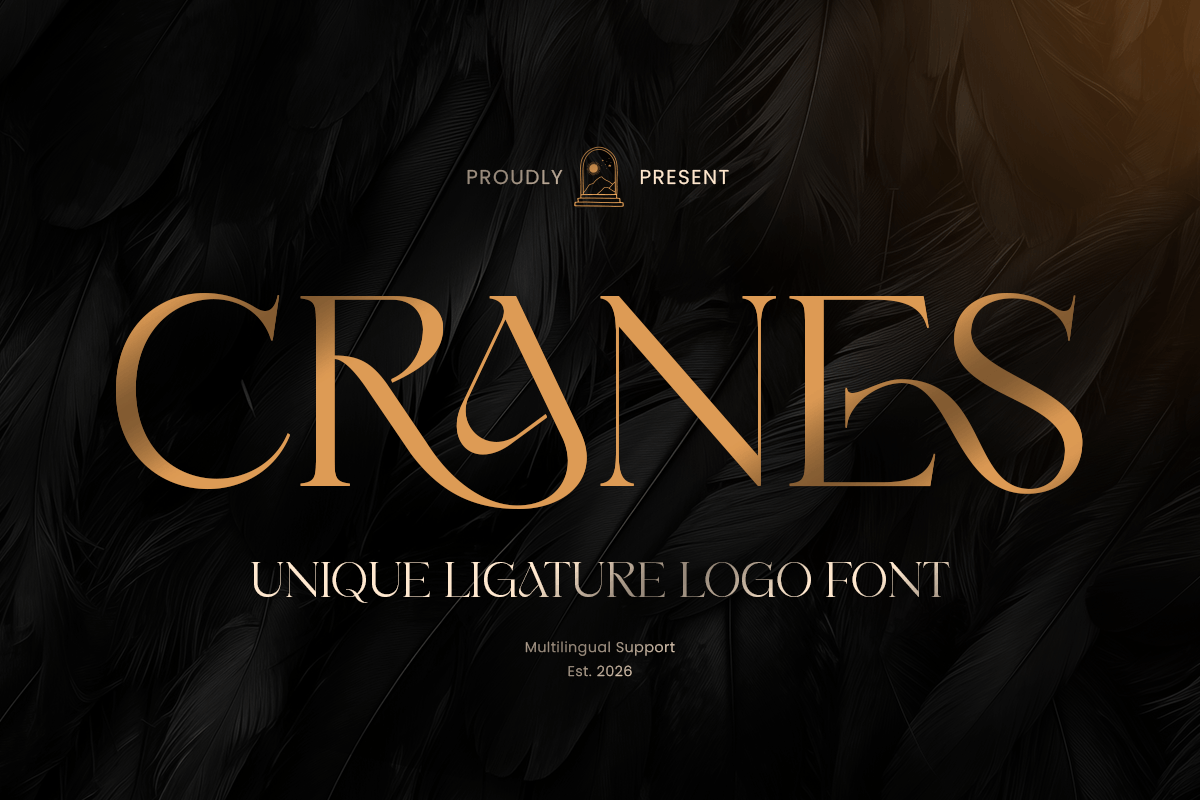
Cranes
-Modern Ligature Logo Serif FontCranes - Modern Ligature Logo Serif Font
CRANES is a modern ligature logo serif font designed to deliver refined elegance with a distinctive premium signature. With polished serif details, smooth ligature connections, and balanced proportions, this typeface creates a sophisticated visual tone that feels modern, luxurious, and instantly brand-ready.
Built for logo-focused branding, CRANES works beautifully across wordmarks, brand identity systems, editorial layouts, website headers, packaging, labels, invitations, signage, presentations, and upscale marketing visuals. Its ligature features add a custom, high-end flow that makes every composition feel more exclusive while maintaining clean readability across both digital and print design.
Whether you’re building a fashion identity, creating beauty branding, designing premium packaging, or crafting elegant editorial headlines, CRANES provides a modern serif foundation with refined ligature charm—making your typography feel polished, memorable, and unmistakably premium.
Inspiration Behind CRANES
CRANES is inspired by contemporary luxury logo design and elegant editorial typography—where refined serif structure, graceful connections, and balanced spacing create a timeless brand signature. The design focuses on modern ligature flow and premium clarity to support sophisticated identities with a stylish, high-end presence.
CRANES Font Features:
Modern ligature serif letterforms optimized for logo and wordmark design
Elegant ligature combinations for custom premium branding
Refined serif structure with strong readability and luxury character
Perfect for logos, editorials, packaging, and upscale headlines
Luxury logos, wordmarks, and premium brand identity systems
Fashion, beauty, skincare, fragrance, and boutique branding
Editorial layouts, magazine covers, lookbooks, and headlines
Premium packaging, labels, invitations, and elegant stationery
Social media campaigns, websites, presentations, and marketing assets
Elevate your premium identity with CRANES—a modern ligature serif logo font made for elegant, unforgettable branding. ✨